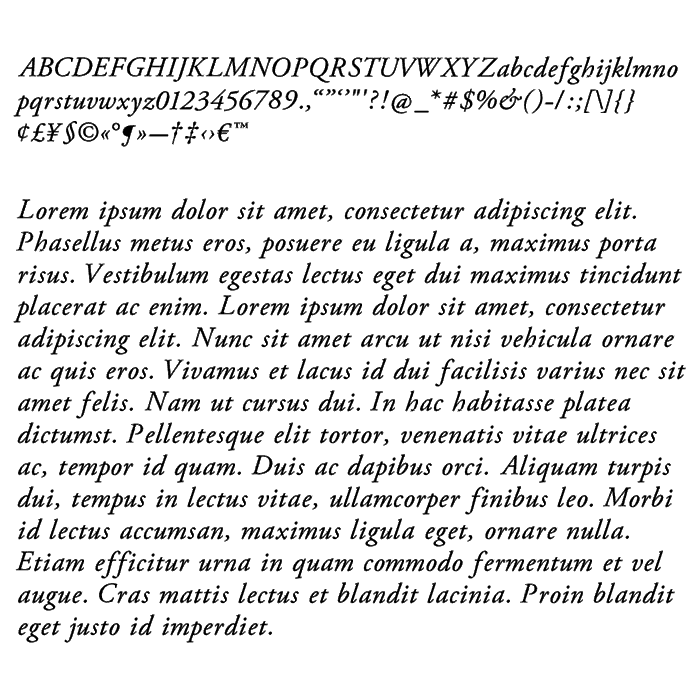
This is a superpixel rendering of Garamond Italic. To make the curves smooth I used six different shades of grey plus black - each colour on a separate layer. It's a proof of concept to explore the possible use of layers for superpixel fonts. Fine-tuning the grey levels may improve the sharpness of the text. Some kerning necessary.
@JingYo, minimum, elmoyenique: Thank you for your comments. I know it's a bit ironic to use the colour font feature first to produce a B&W font. I learned about superpixel fonts at Fonts for Flash (FFF). They used grey pixels to smooth the "curves" of the letters, but only a few. I took the idea to the next level.
I suggest you take a look at the lowercase x as it seems to optically dip below the baseline.
The beauty of the rendered glyphs is staggering. That z! That a! That m g h x! That &! I love this version so much.
@ minimum: Thank you for your comment. I corrected the x. There was a stray pixel in the u (visible in the sample). The kerning would be an interesting case: the distances can only be set by whole pixels.
I used all 8 layers: 6 shades of grey, black, and a template layer (turned off). The colour values are as follows: #e3e3e3, #b7b7b7, #939393, #6d6d6d,  #4d4d4d, #252525, #000000. The last one is a random colour (pink). I'm sure there are better-optimized palettes possible, but for the purpose, this is good enough. More information about this experiment at the first version: Garamond Italic SP.
This font looks really nice, and I like how the glyphs look (especially at double pixel size)…
Great, but lc X should be lowered one down.
Fantastic Anti-aliasing.